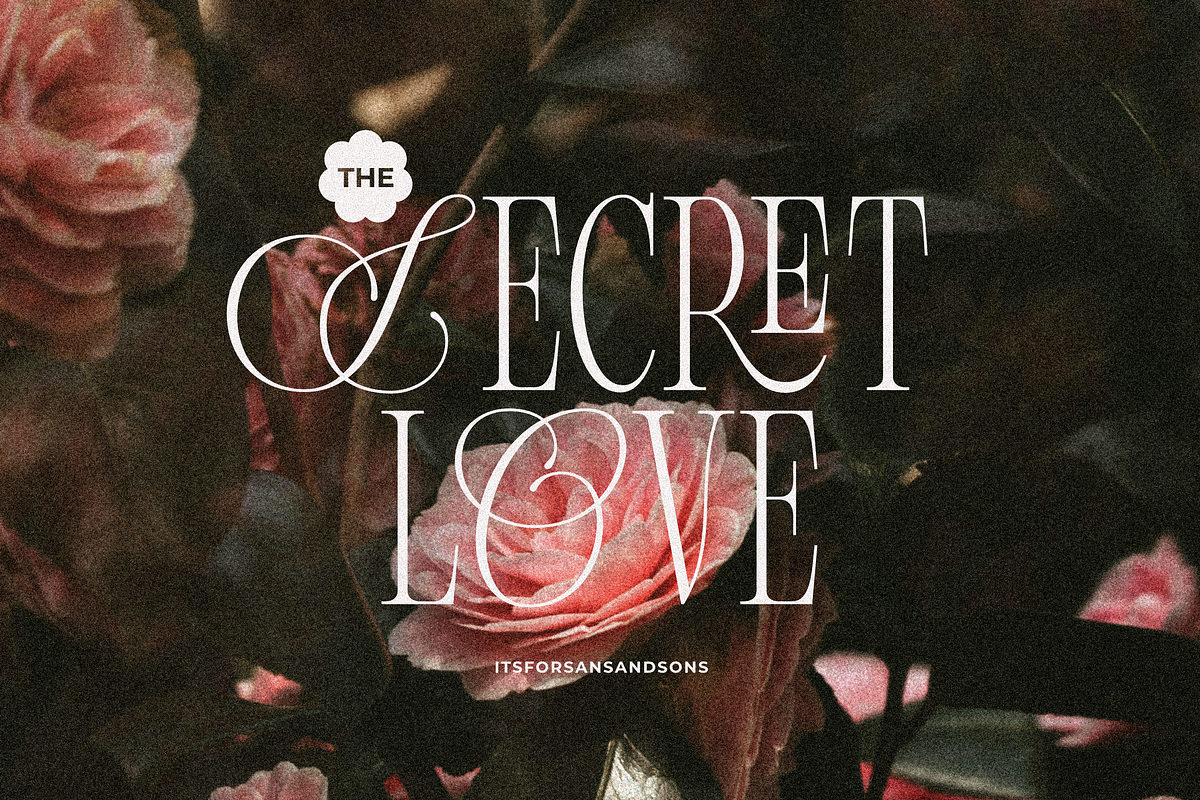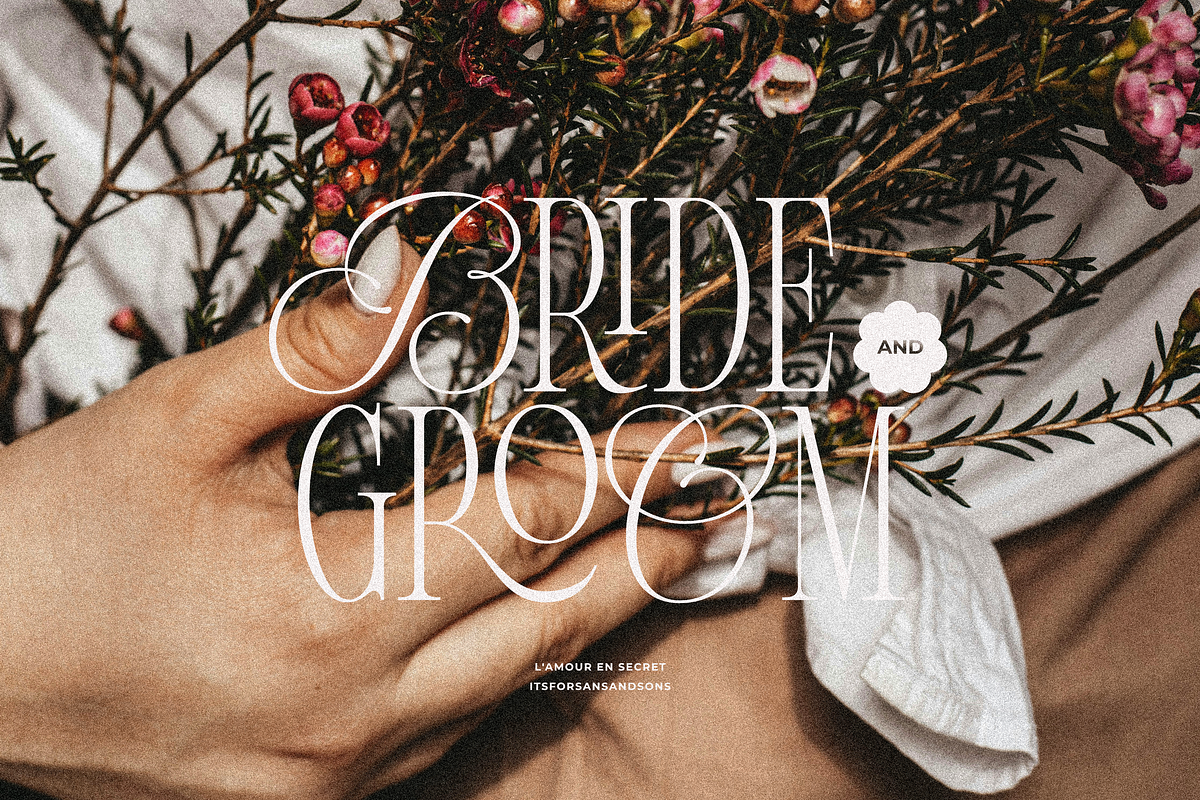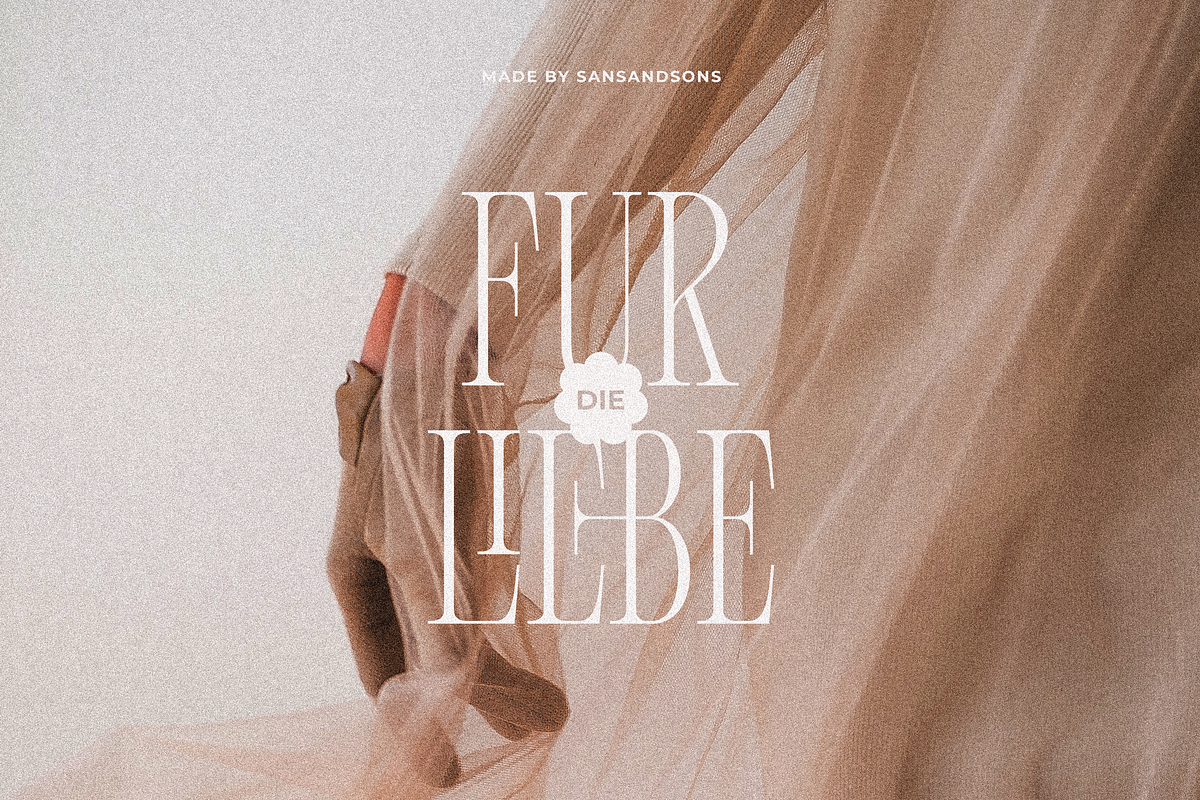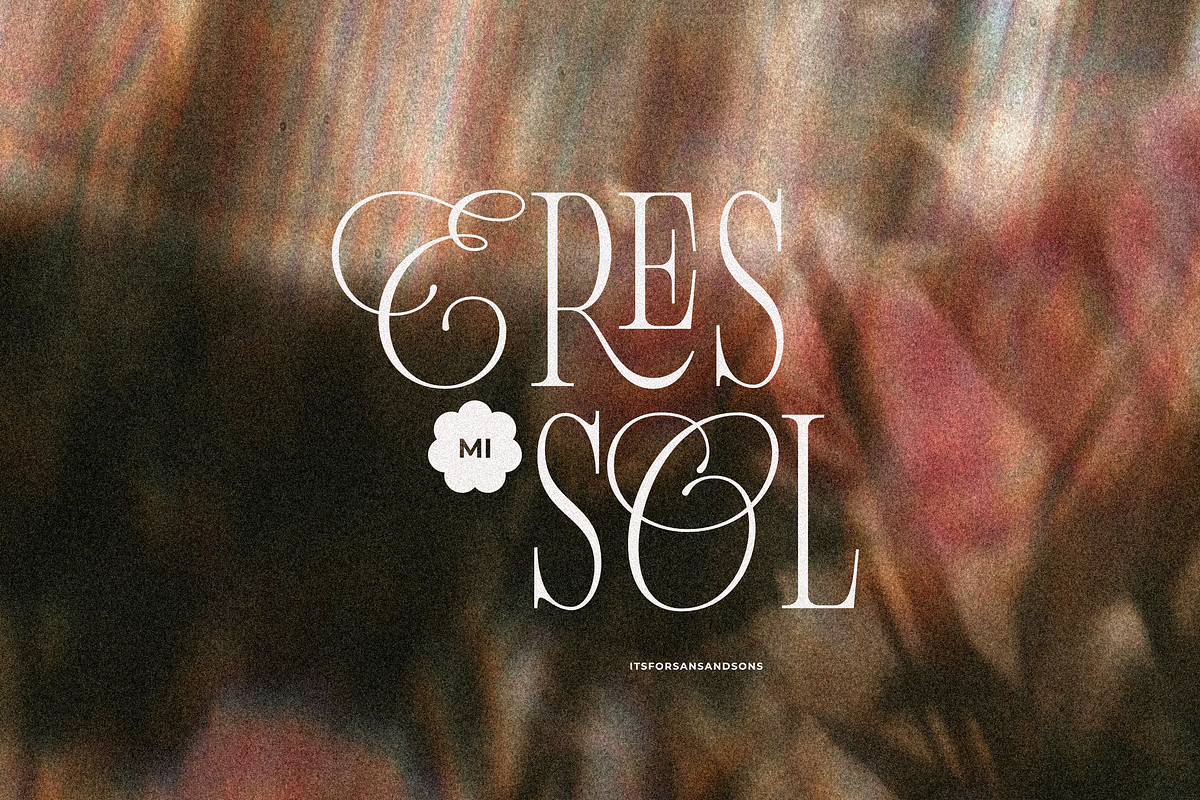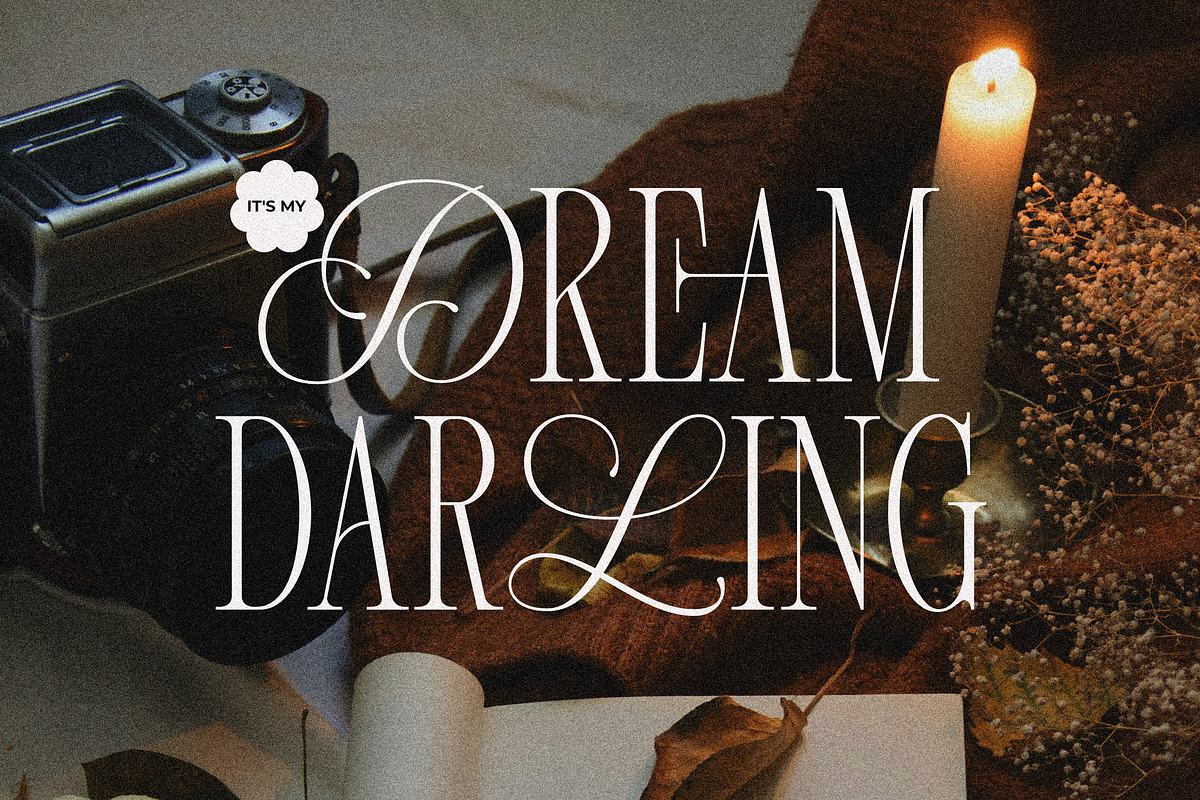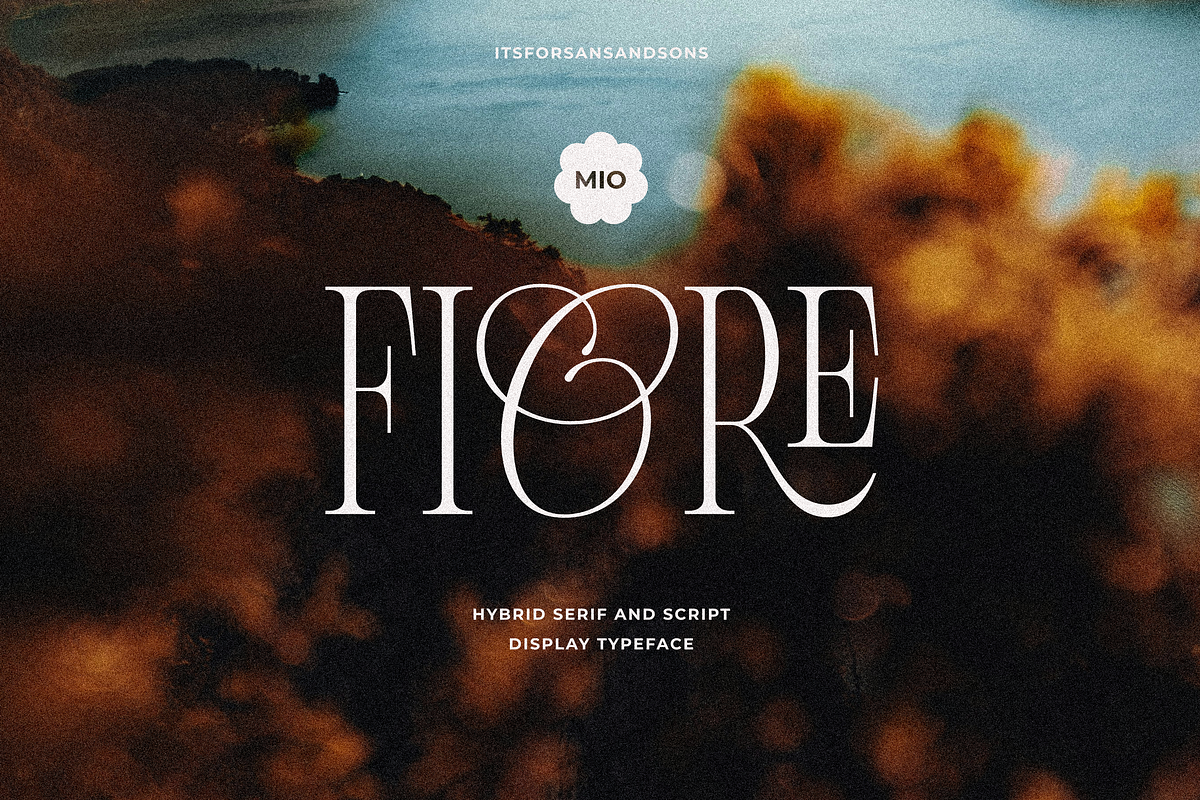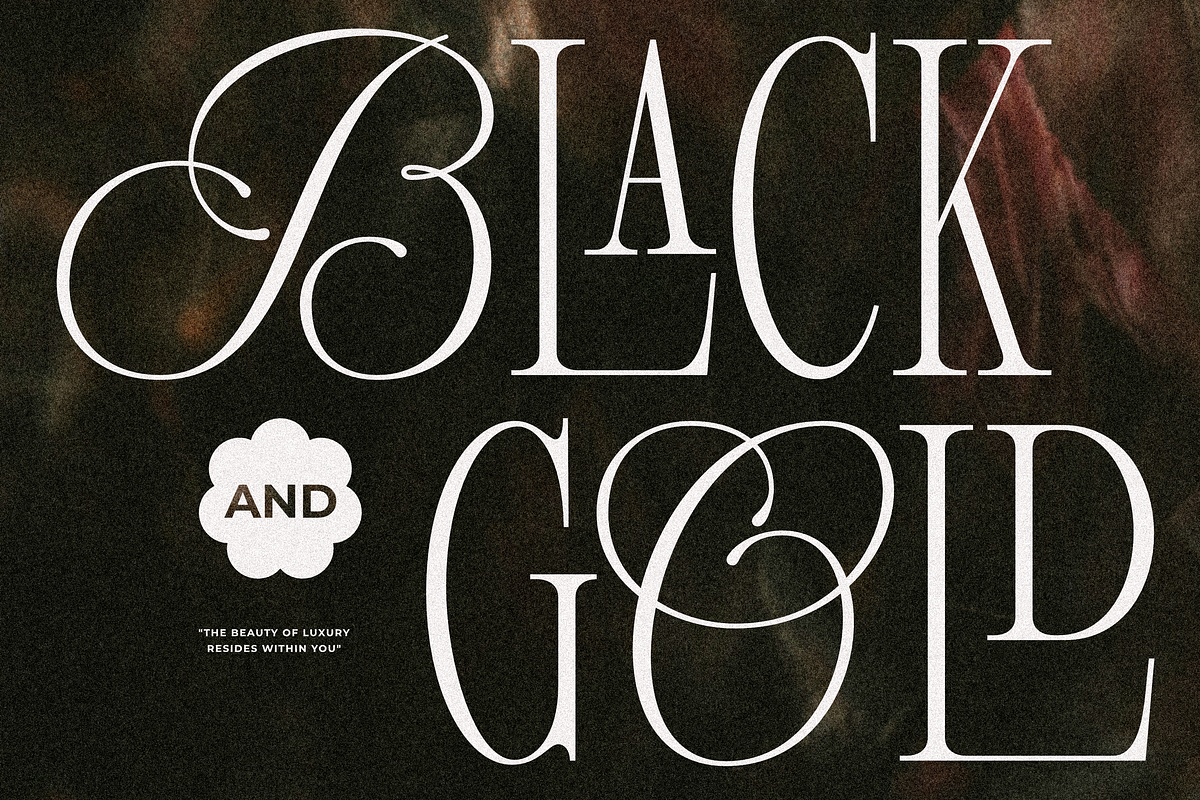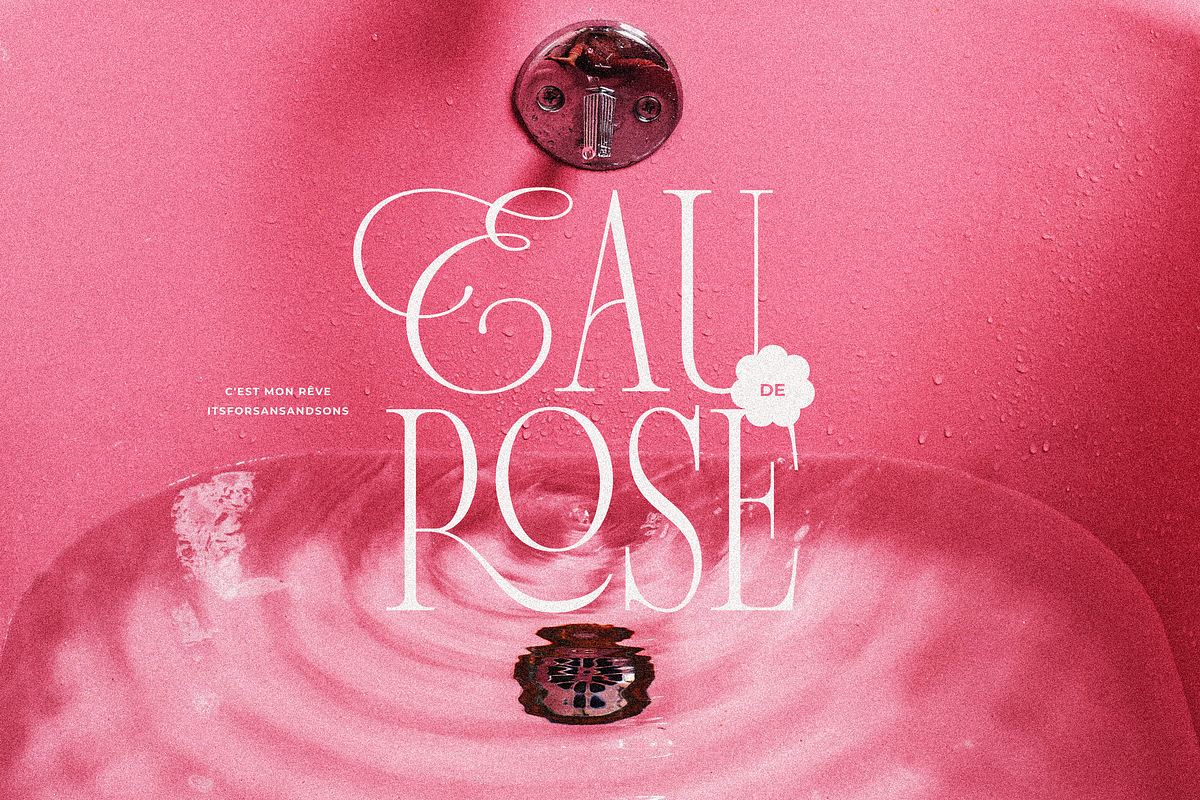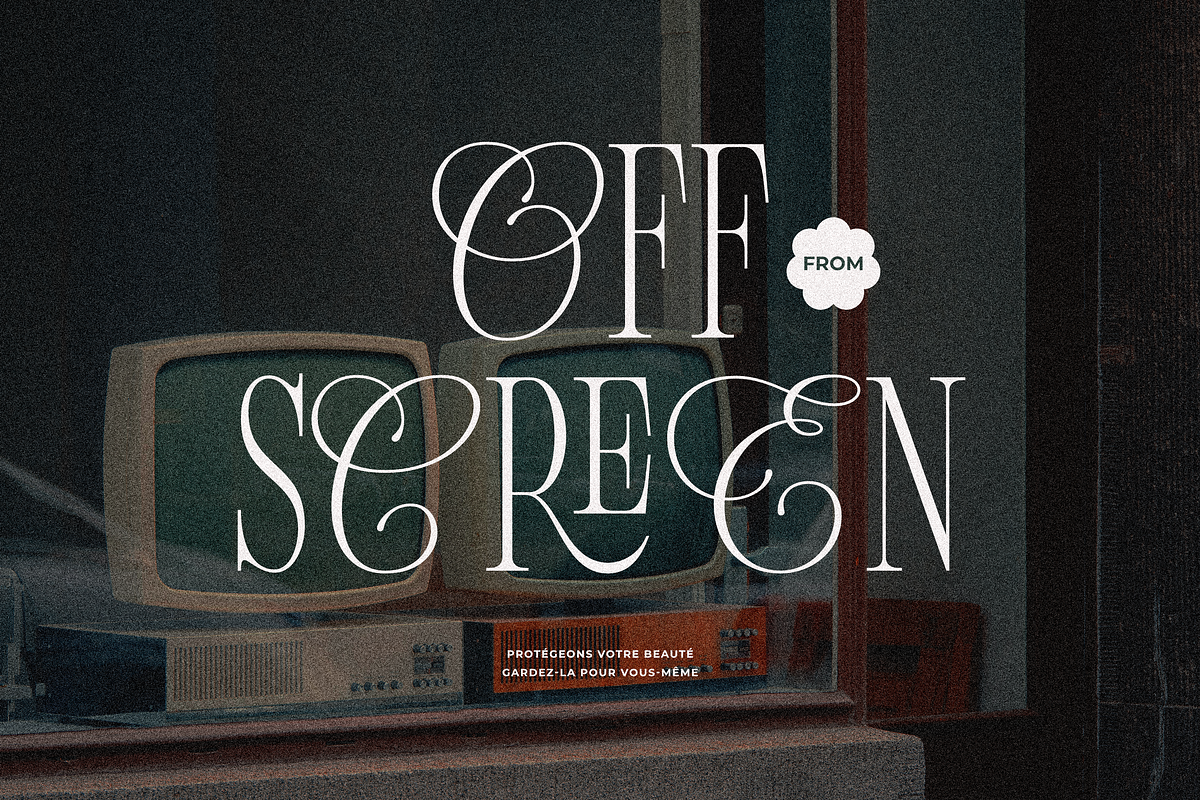
Fiore - Elegant Serif Script
FIORE - Made by Sans And Sons
Meet "Fiore Serif Script" — a chic serif font merging classic elegance with contemporary script.
With graceful curves and subtle serifs, this font adds sophistication to any project. Versatile for branding, invitations, or editorial design, Fiore Serif Script ensures a polished, timeless aesthetic. Elevate your message with the refined charm of Fiore, where every letter is a statement of style.